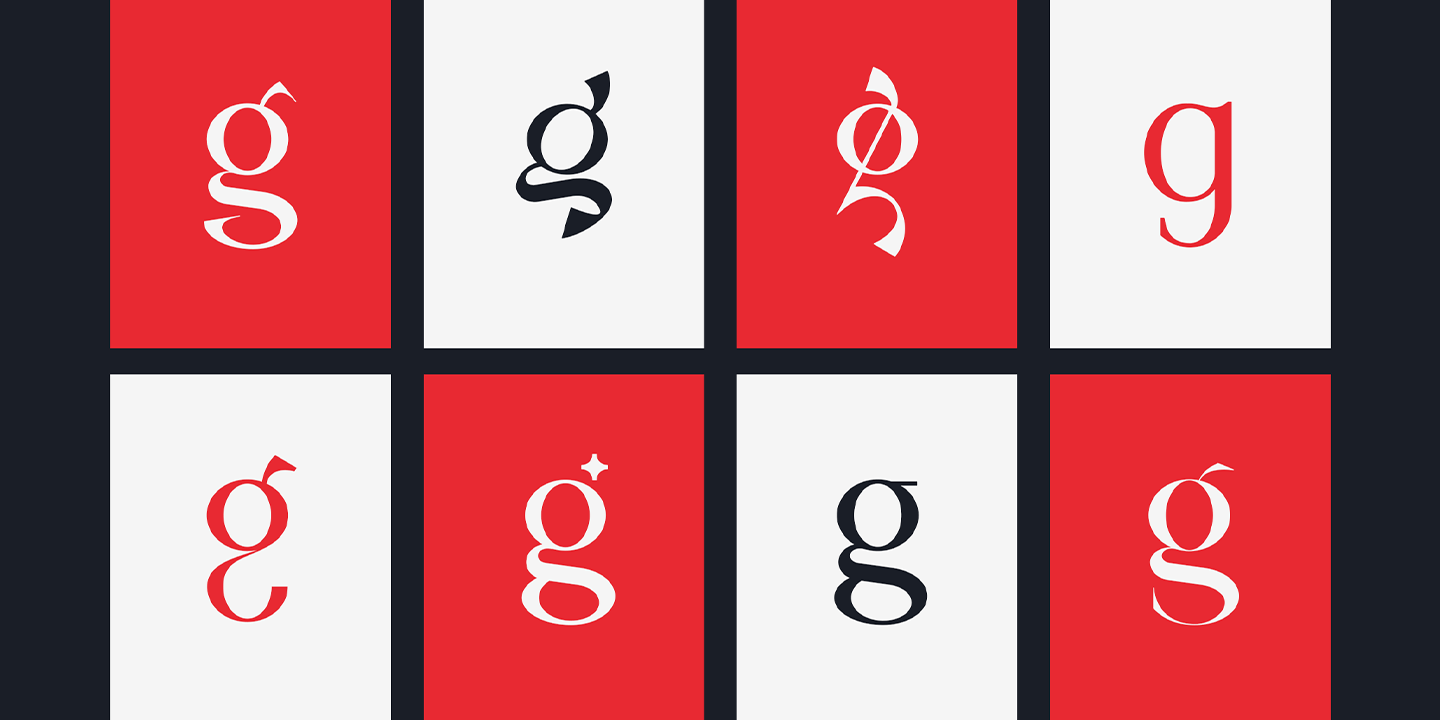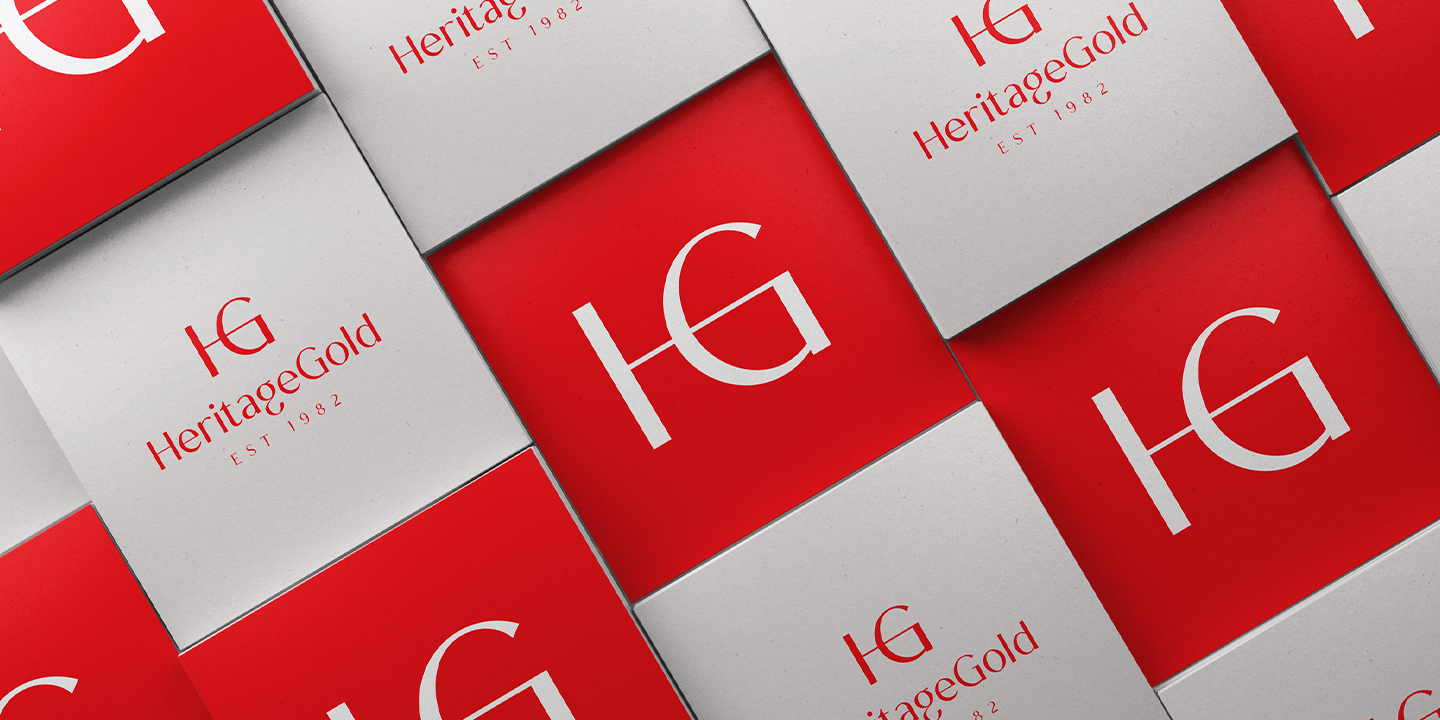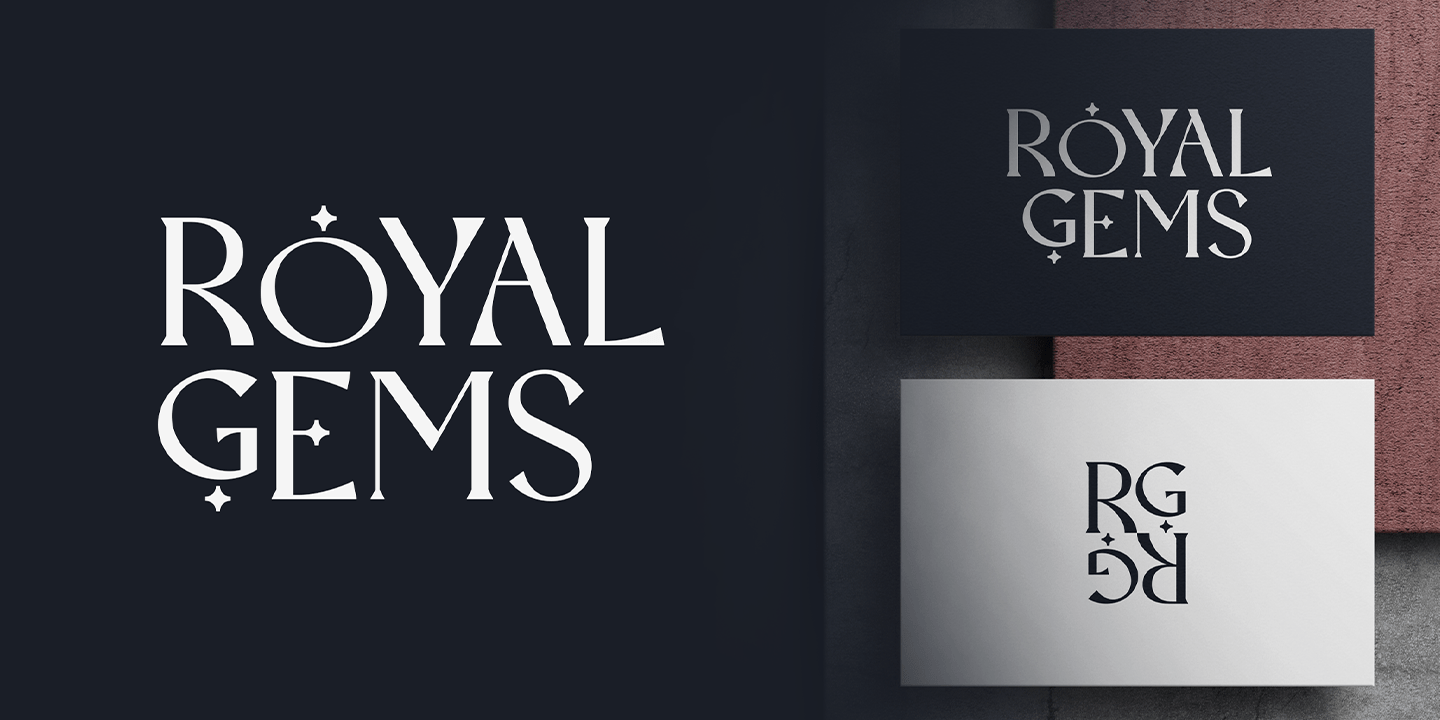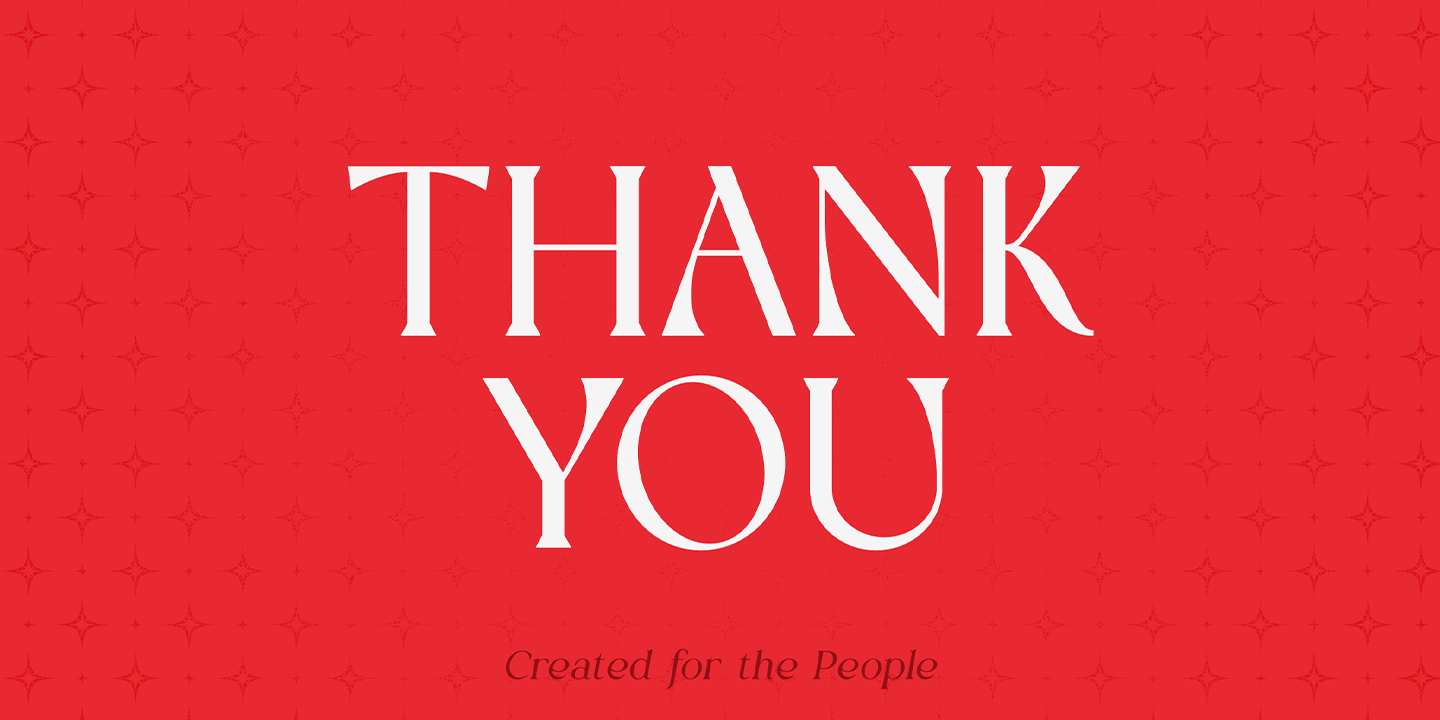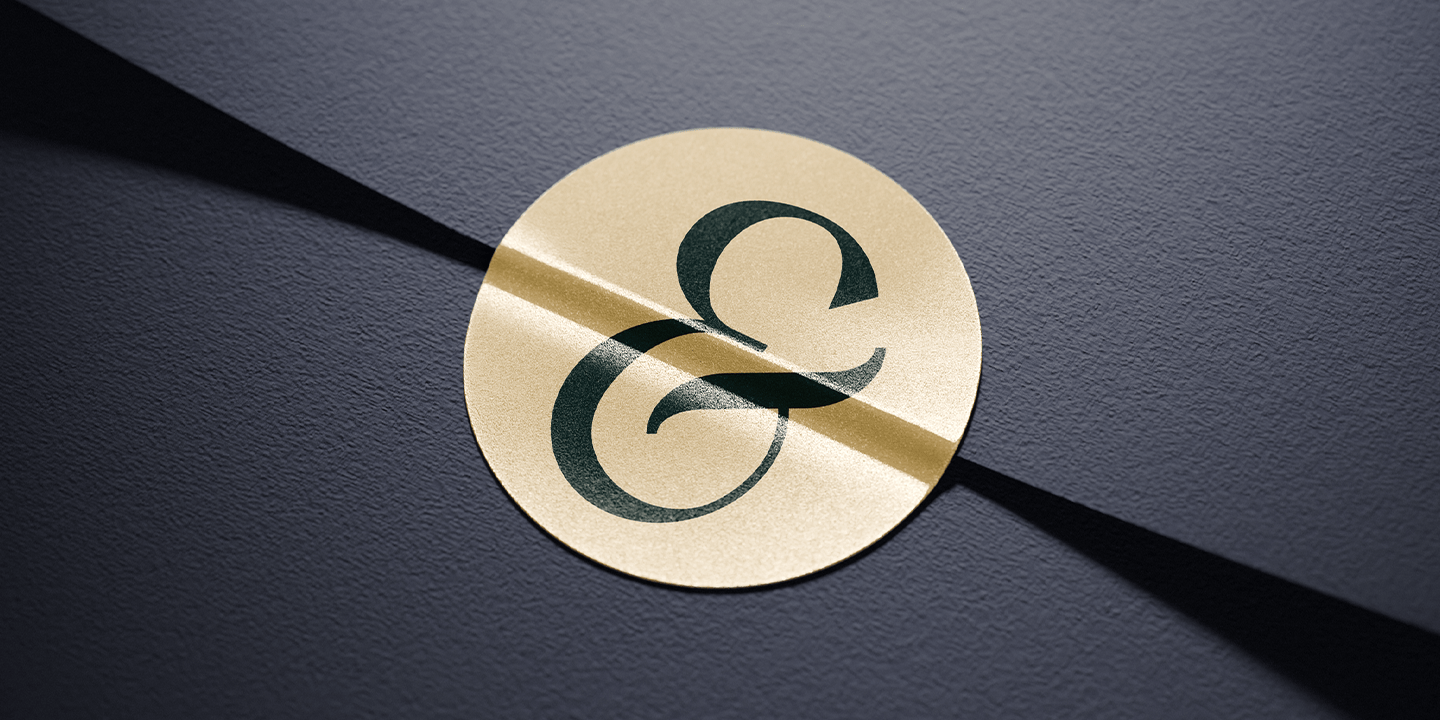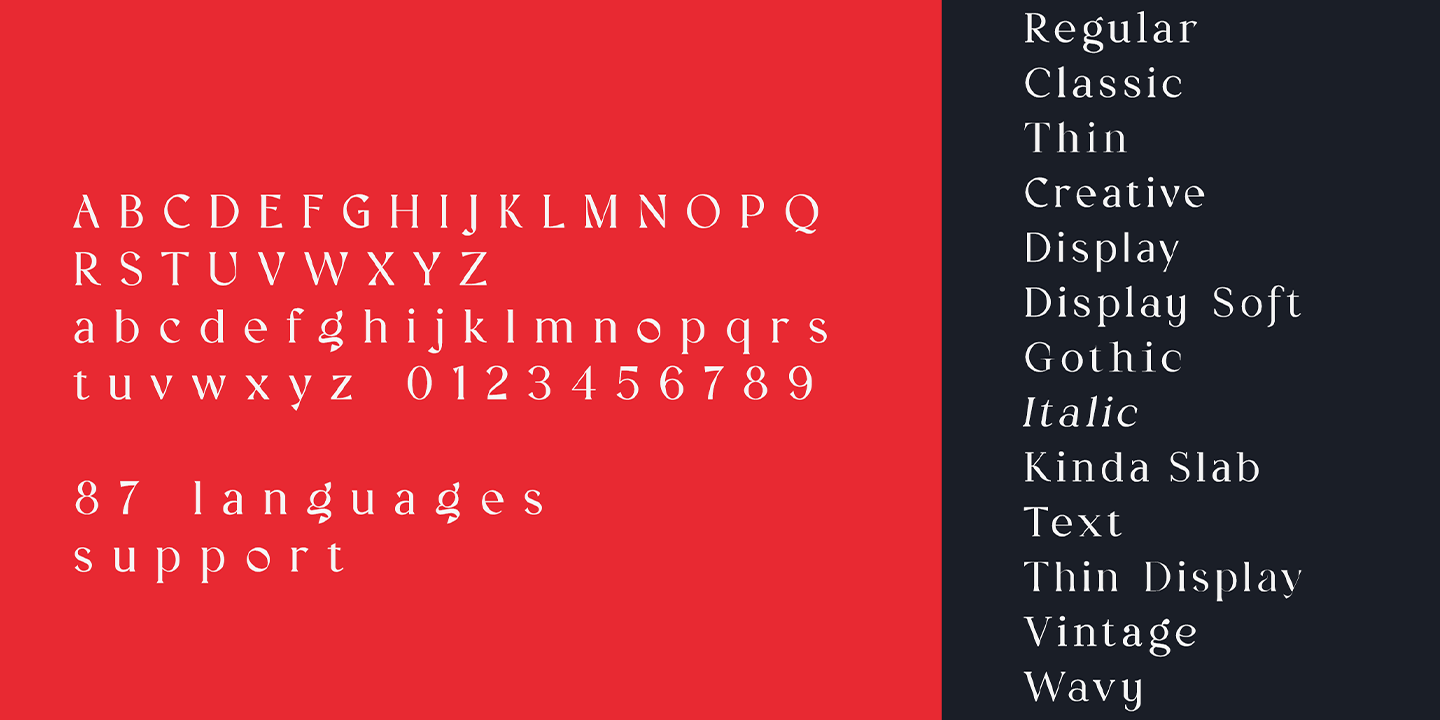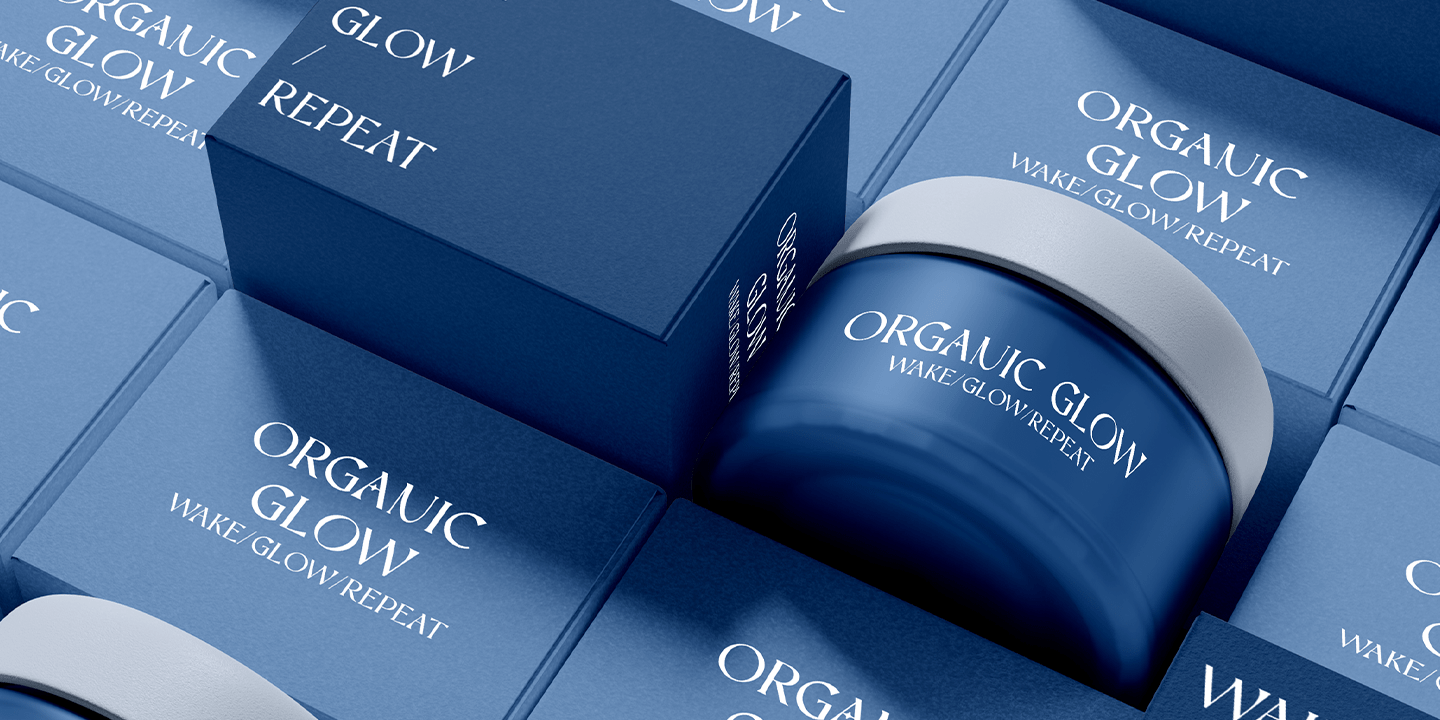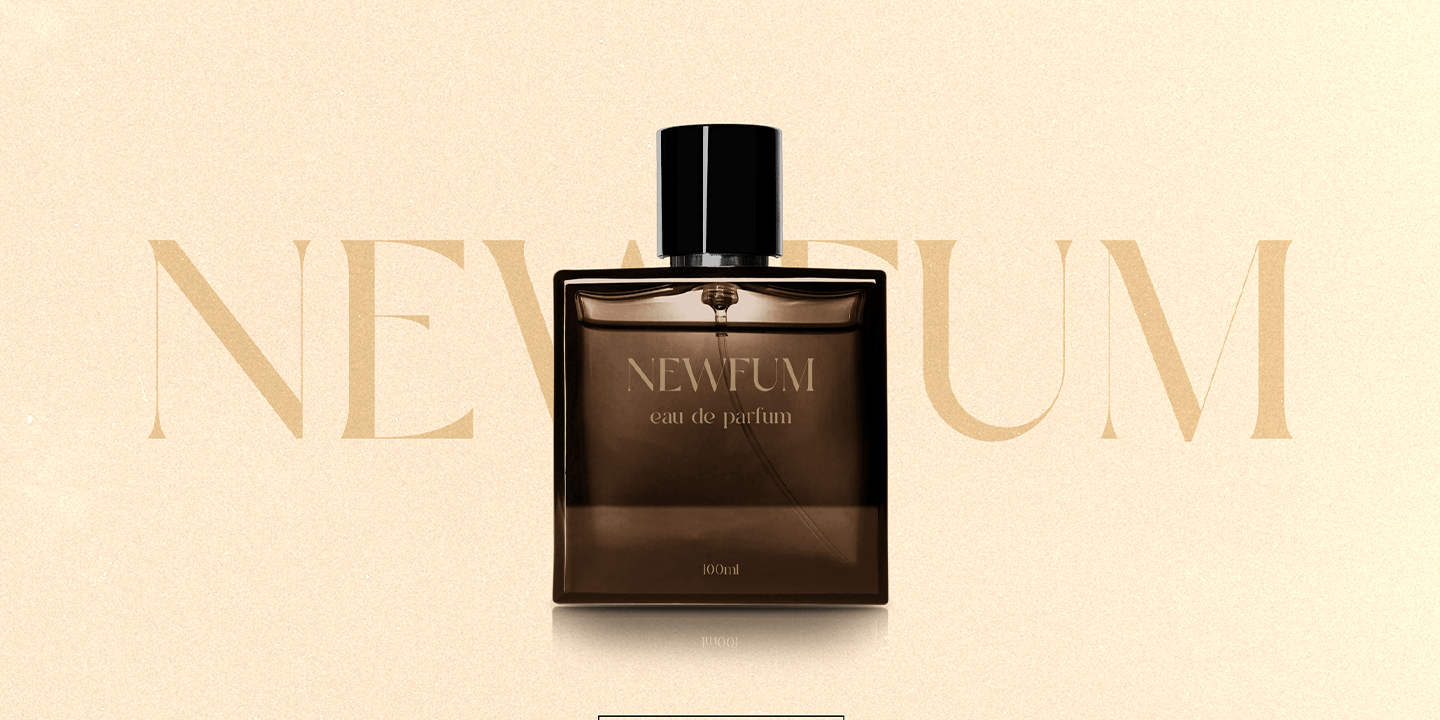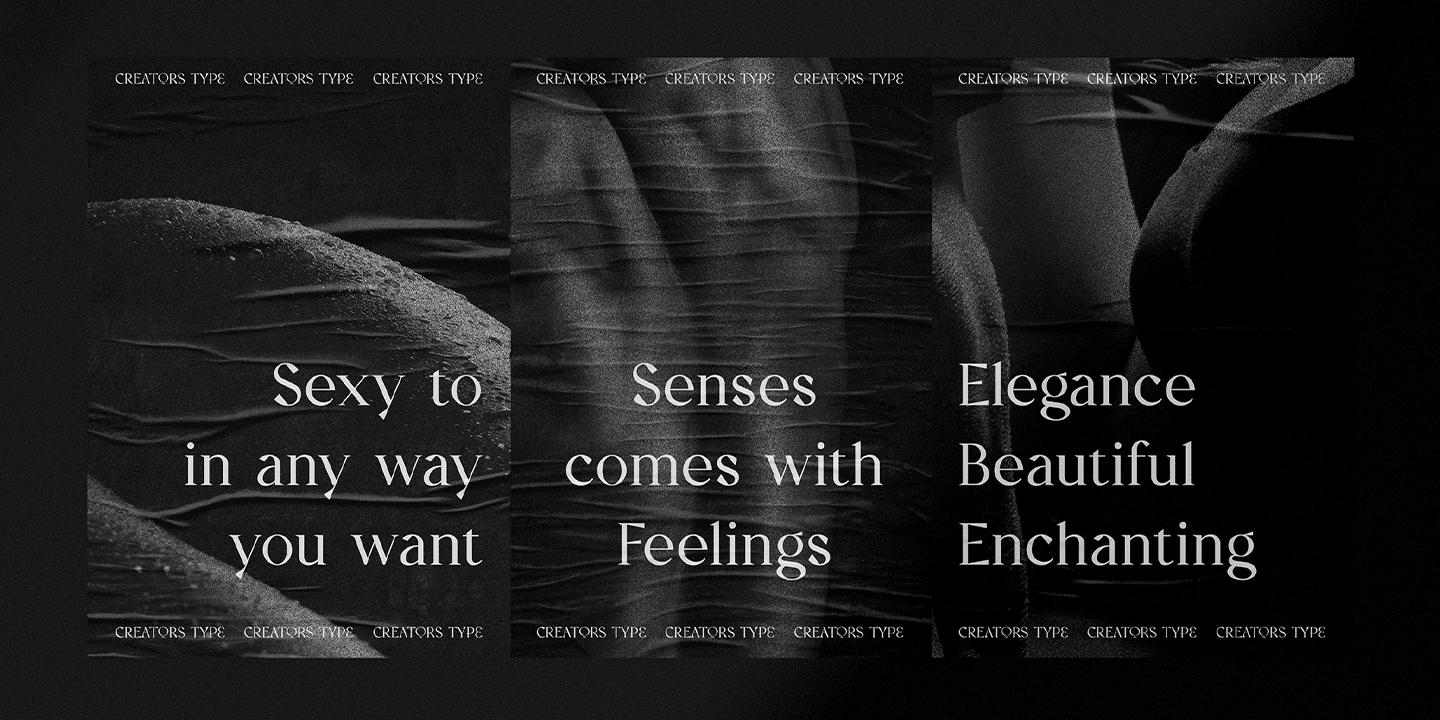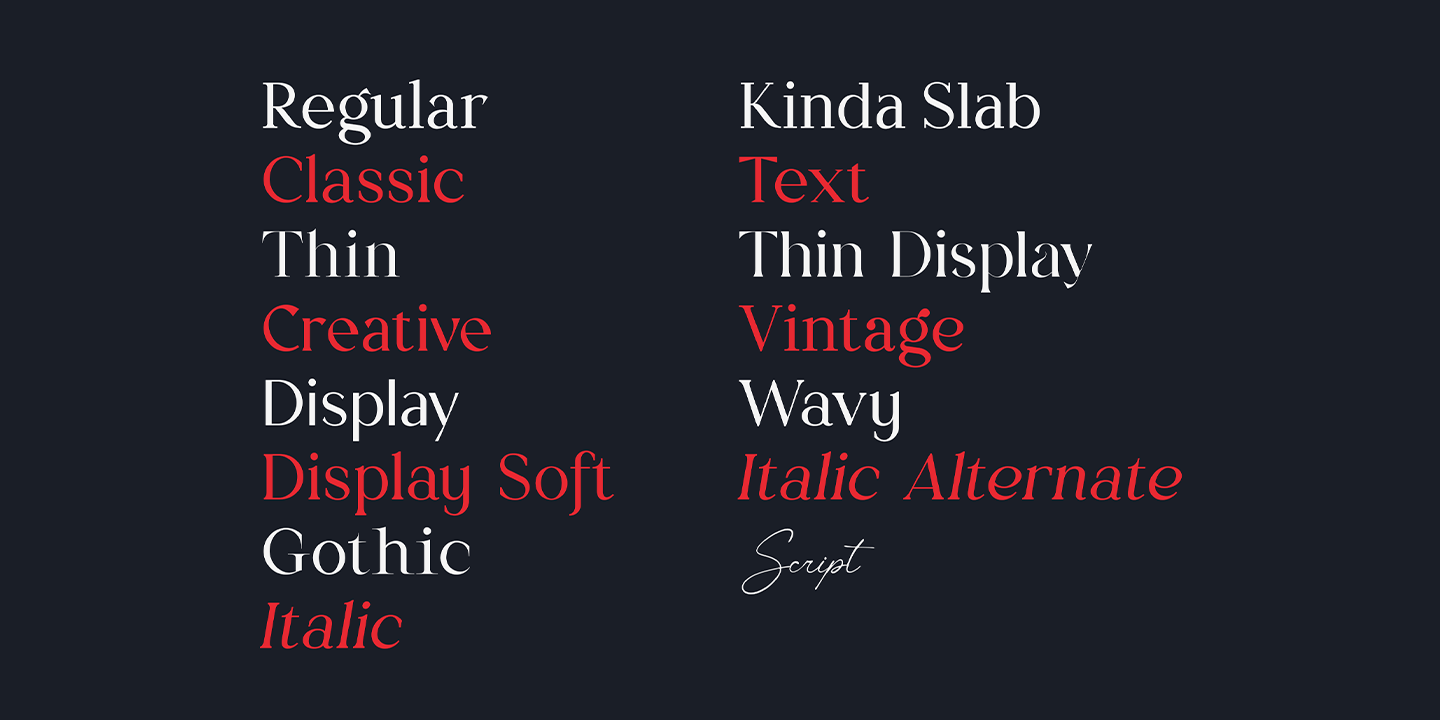
Creators Type
Creators Type - Elegant Serif Typeface with 15 Font Styles & Script
Discover Creators Type, a versatile serif typeface with 14 unique styles plus a complementary script. This type family is perfect for creative professionals, offering options ranging from Classic to Thin, Gothic, Vintage, and more. With support for 87 languages and a collection of alternate glyphs, Creators Type is ideal for branding, editorial, and web design projects. Whether you're working on a luxury logo, packaging, or digital design, Creators Type provides flexibility with its diverse styles and impeccable details.